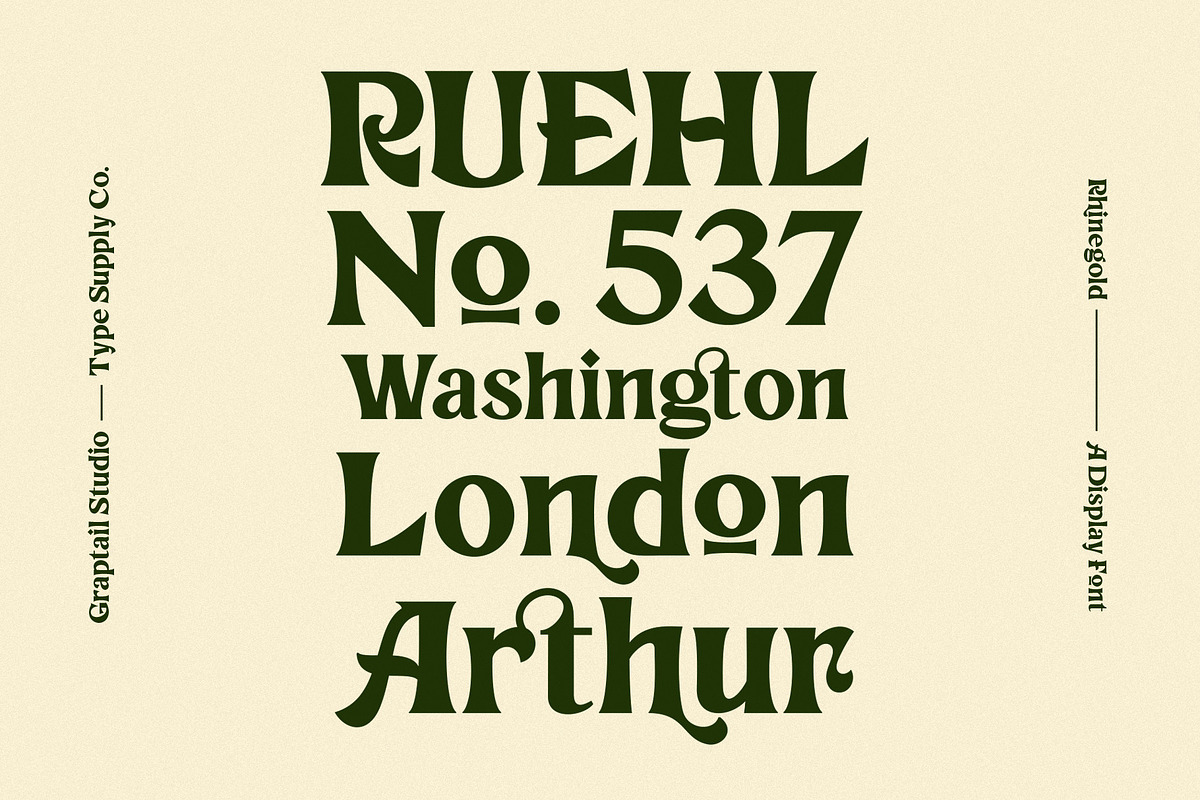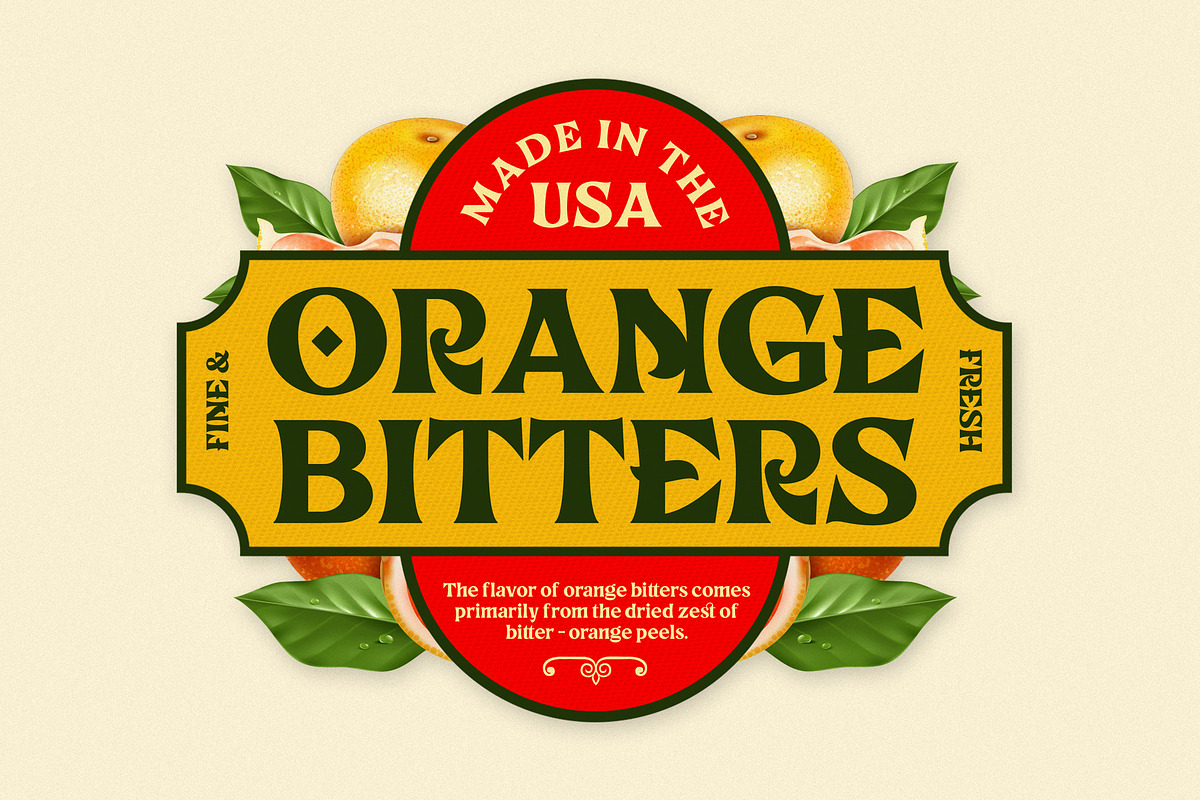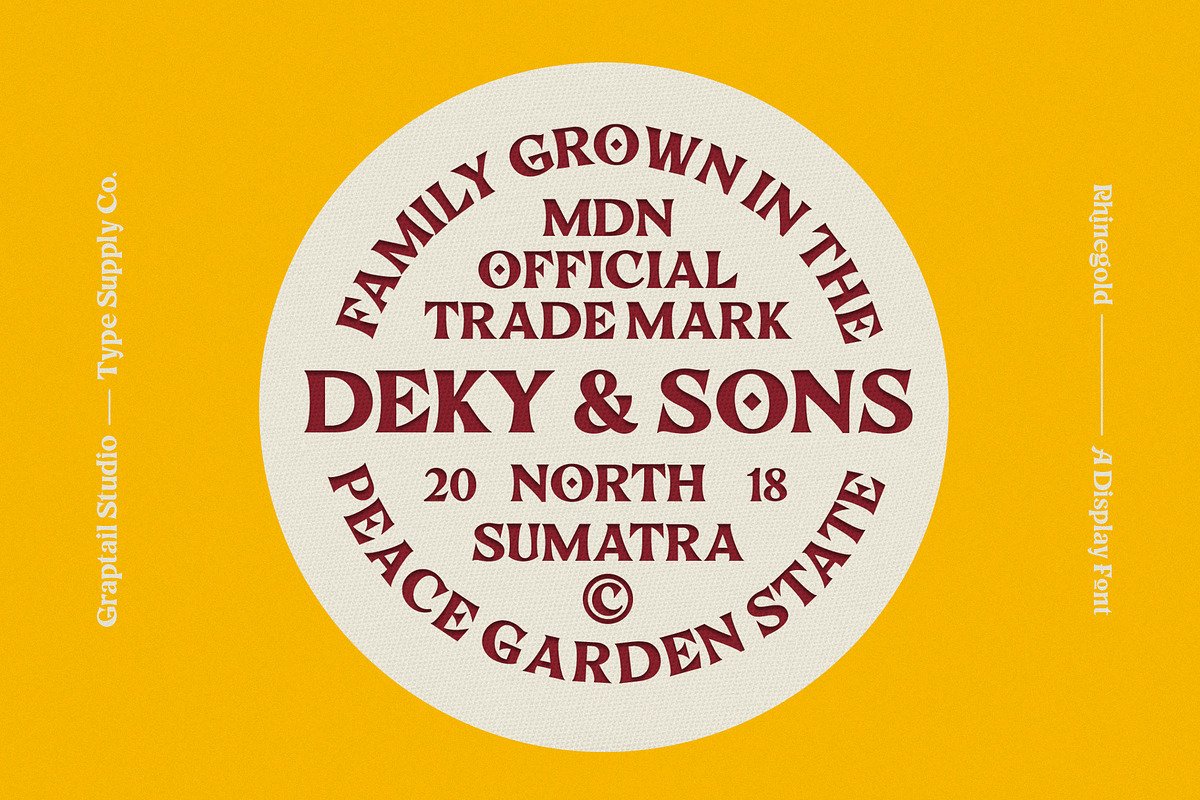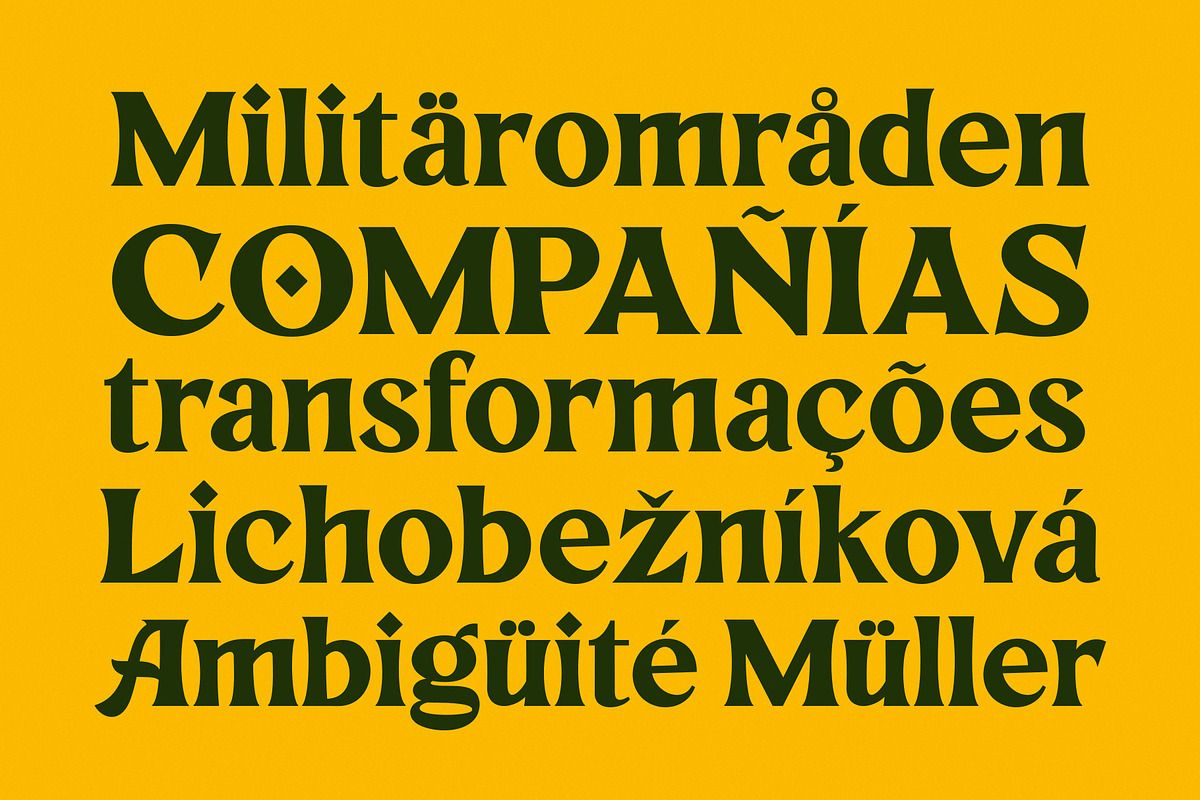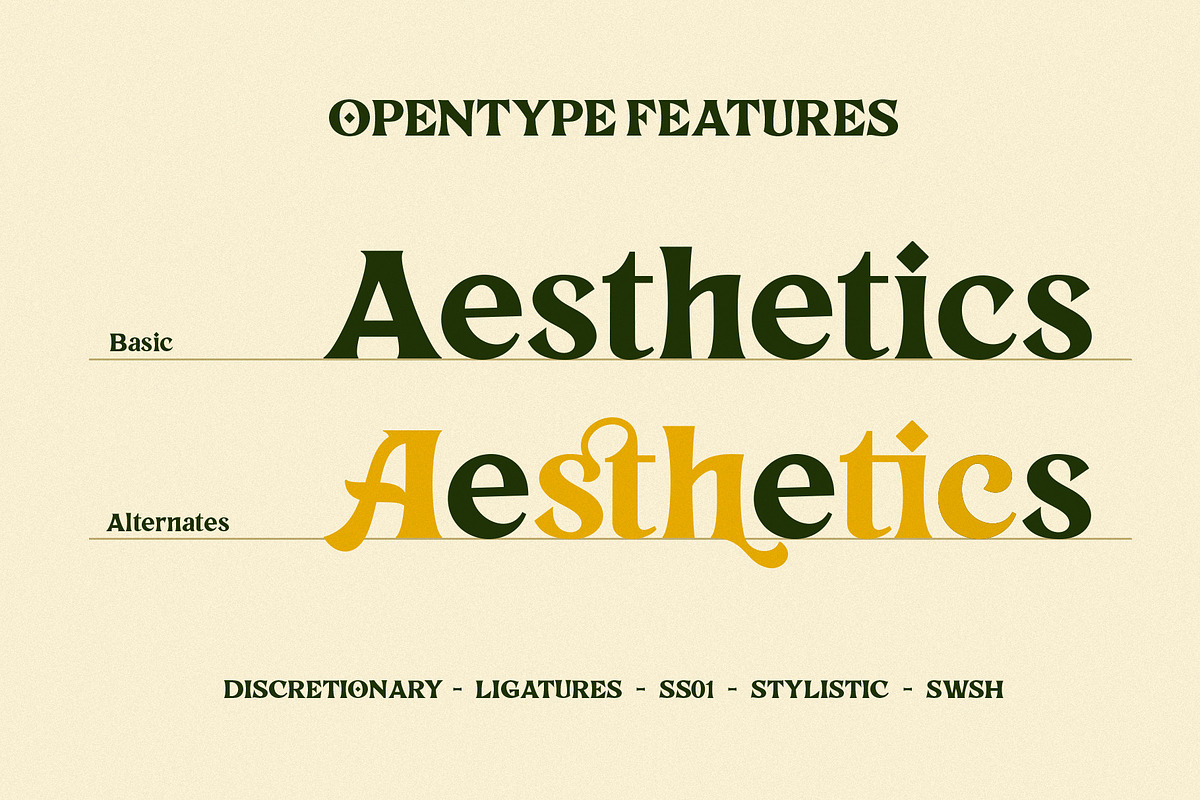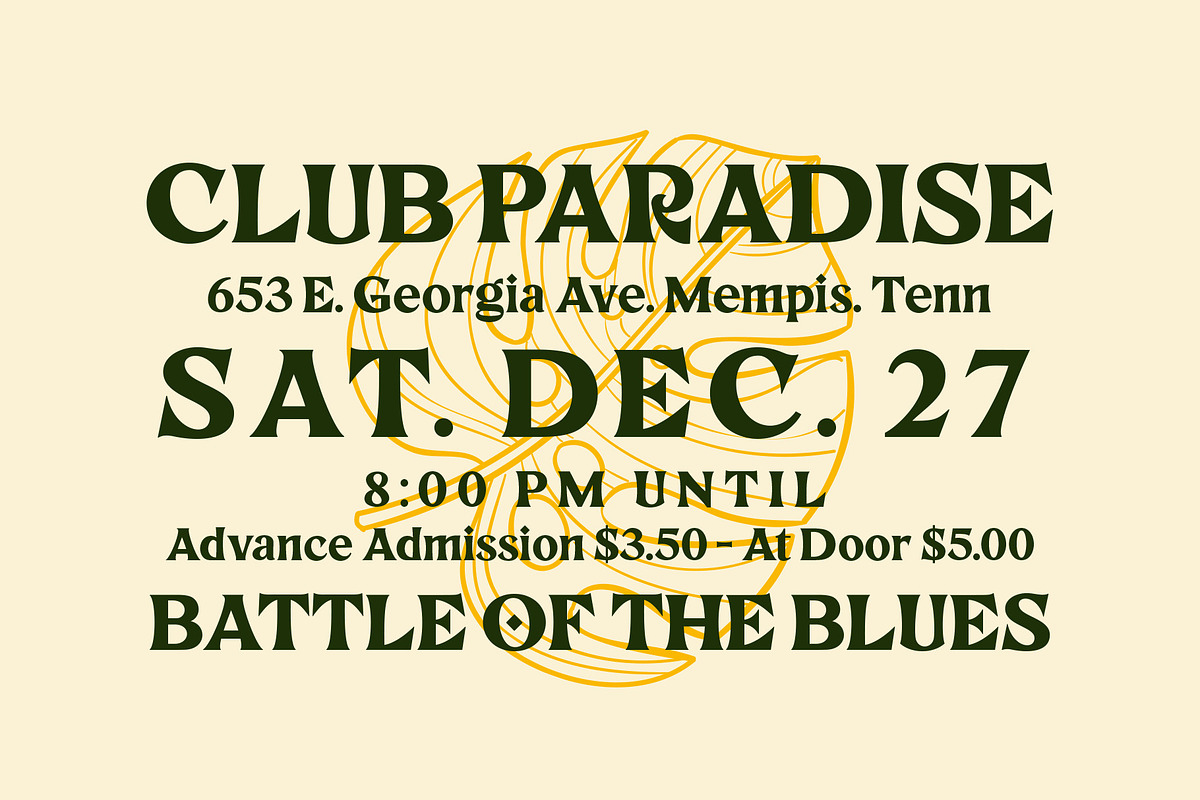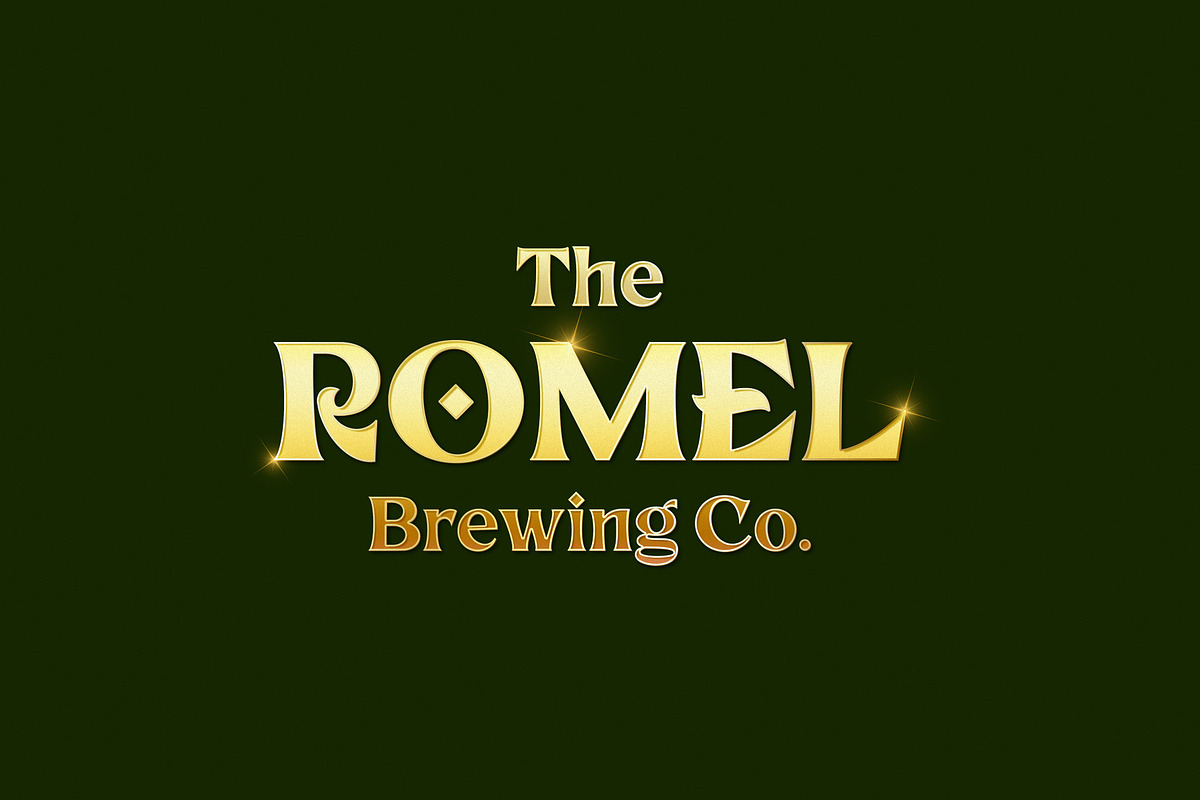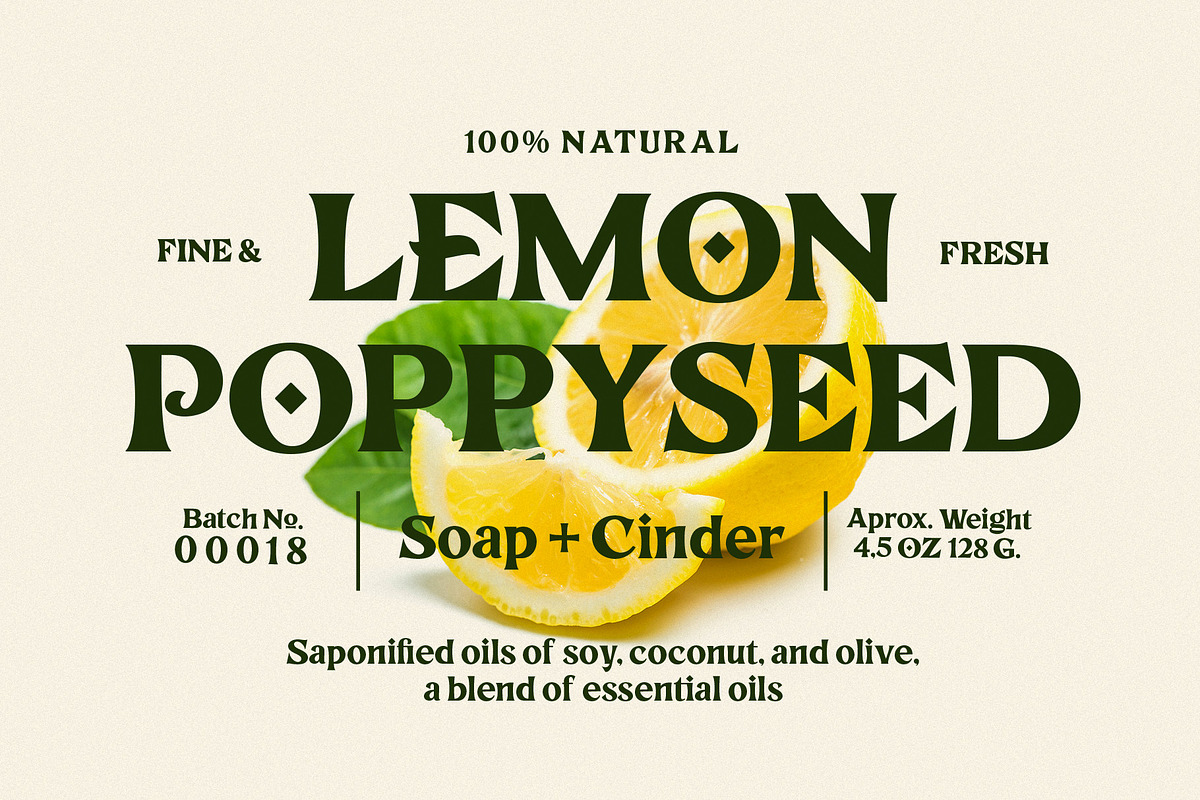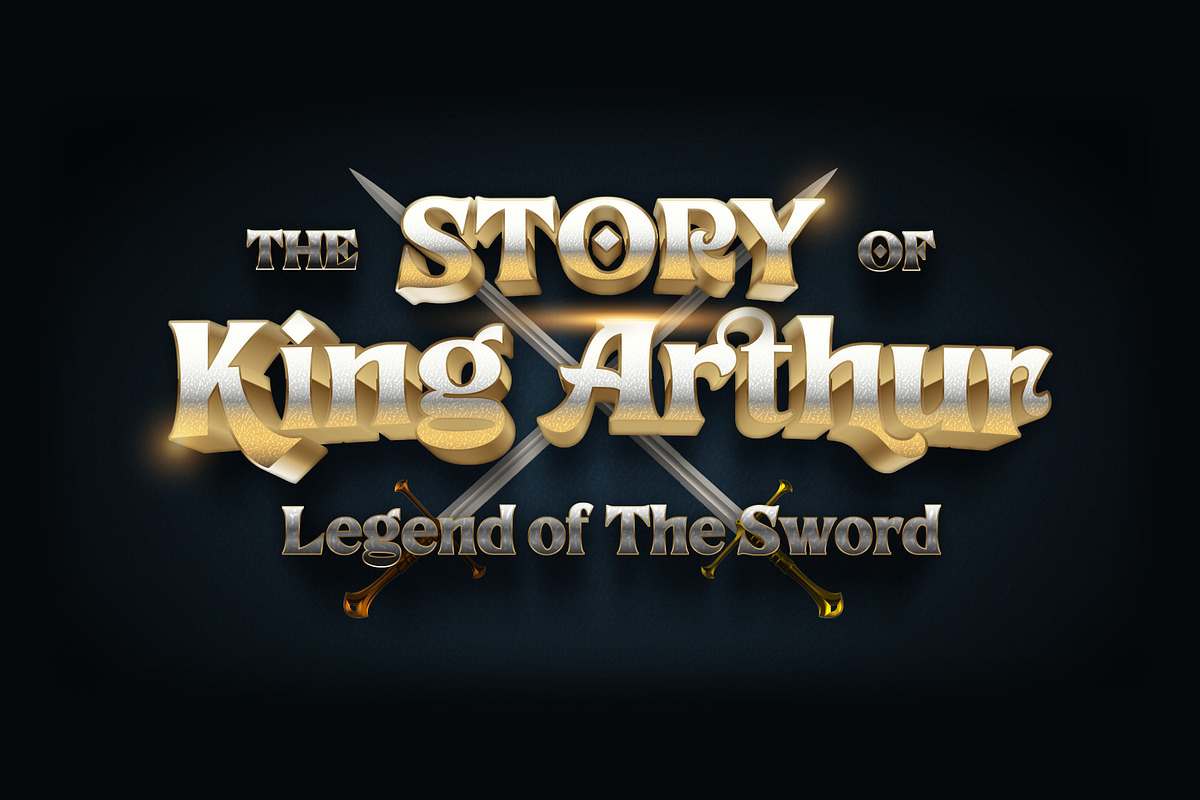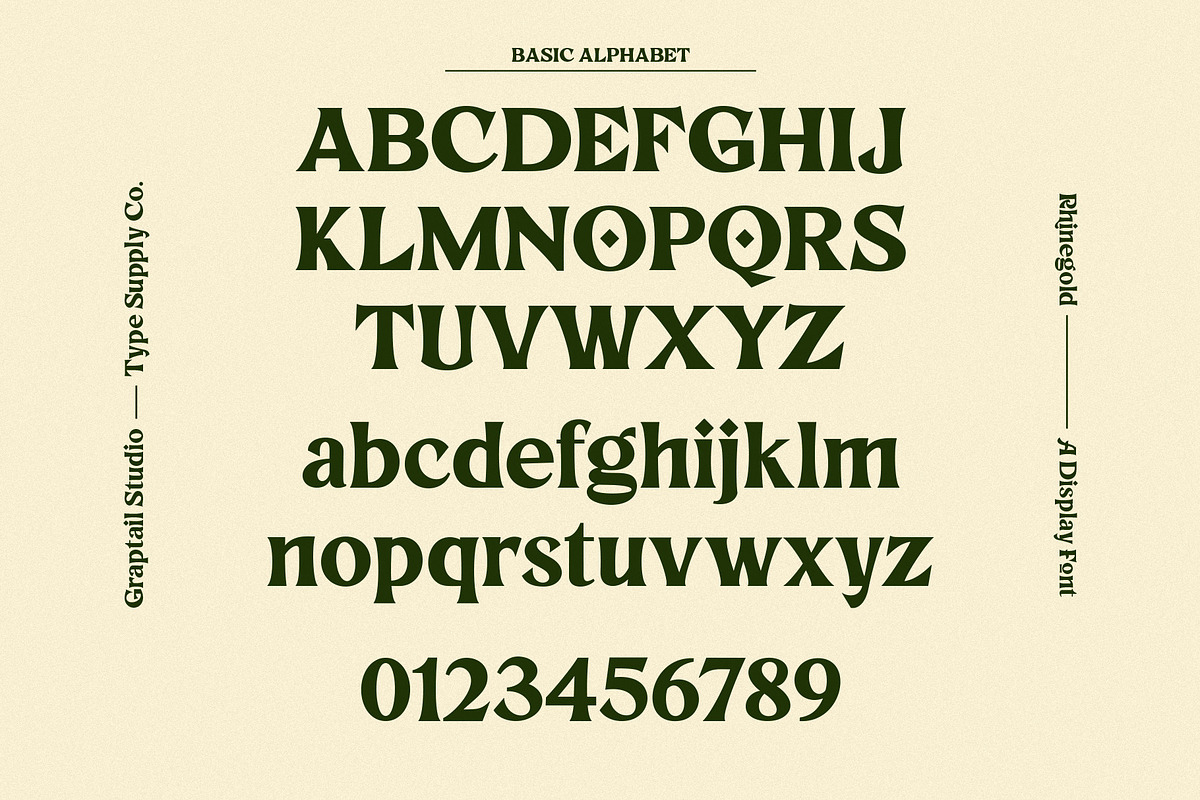
Rhinegold - Display Font
Rhinegold is a font display is made by hand, inspired by classic posters.
Rhinegold comes with uppercase, lowercase, numerals, punctuations and so many variations on each characters include opentype alternates, common ligatures and also additional swash to let you customise your designs. Perfect to use for Logotype, Letterhead, Poster, Apparel Design, Label and etc.
OPENTYPE FEATURES
- Discretionary Ligatures
- Stylistic Set (ss01)
- All Alternates